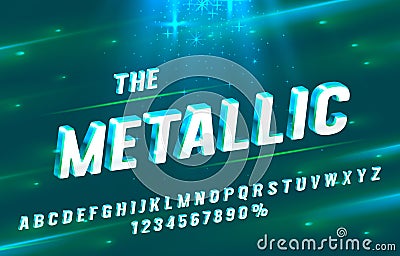
The Metallic Font Set Collection, Letters And Numbers Symbol. Vector
The Metallic font set collection, letters and numbers symbol. Vector #222645233
The Metallic font set collection, letters and numbers symbol. Vector illustration